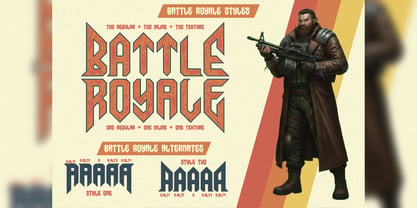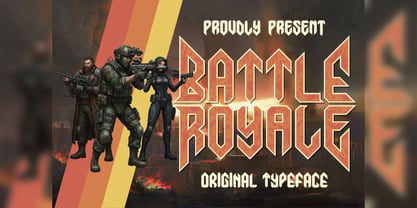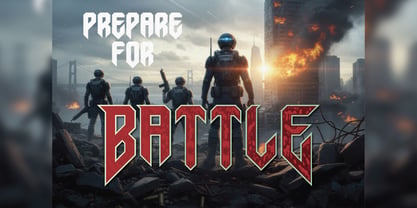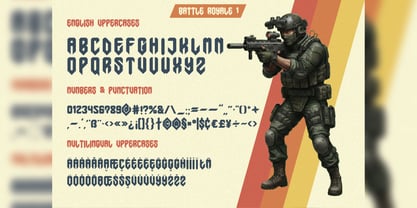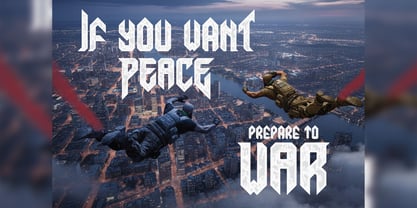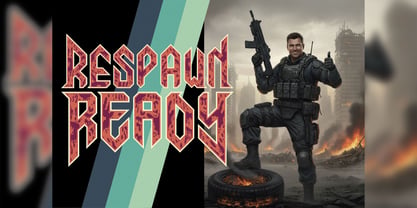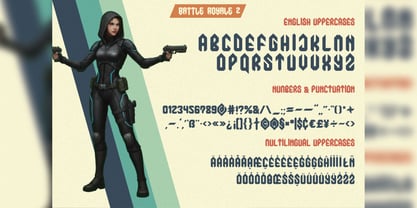
Battle Royale
The Battle Royale Font Family was designed by Oleg Voznyy and published by Vozzy. Battle Royale contains 6 styles and family package options. More about this family
I am pleased to present a new font called “Battle Royale”. It is a unique font for headlines, accent inscriptions, and for attracting attention! It contains additional characters, punctuation marks, multilingual characters, and a large number alternate characters (make sure your software supports this open type feature). This font will look great on your beautiful designs!